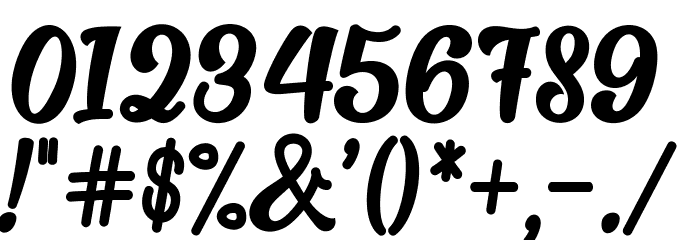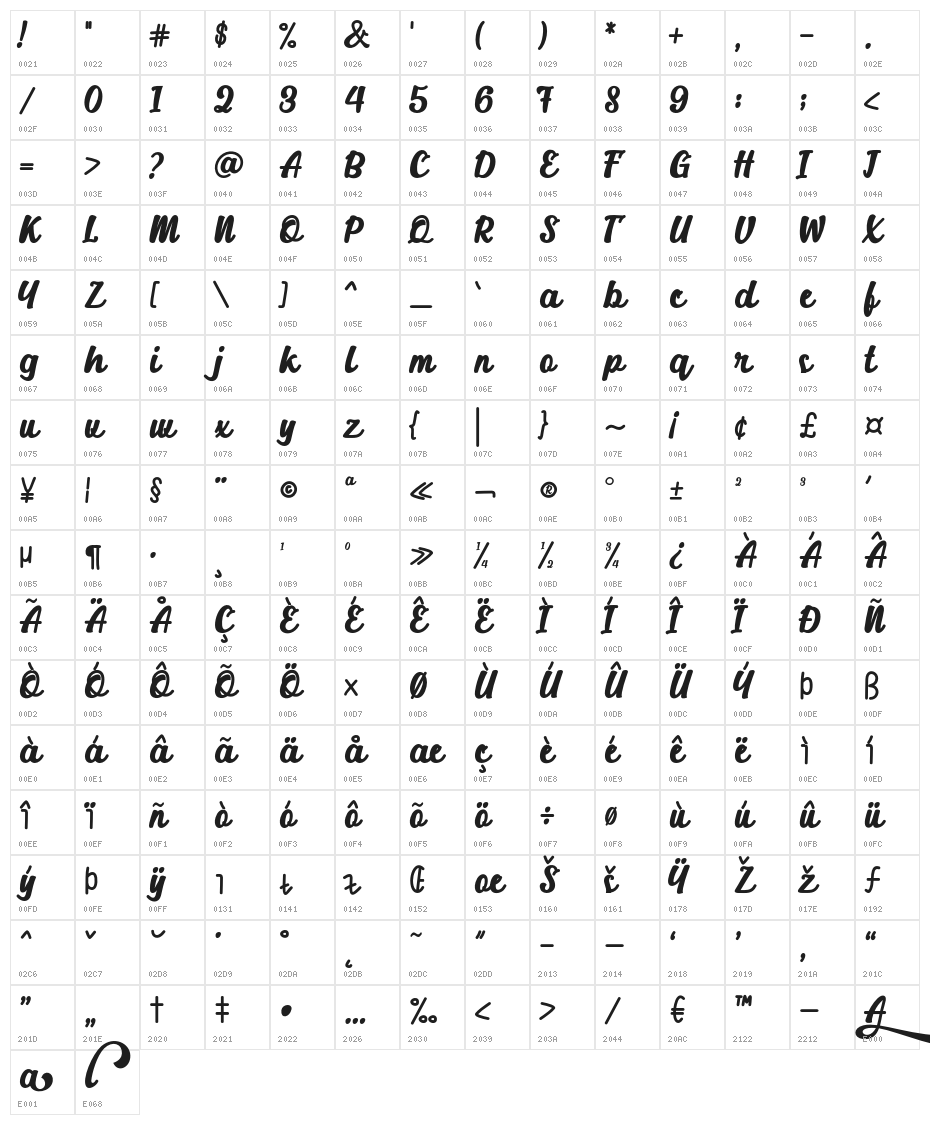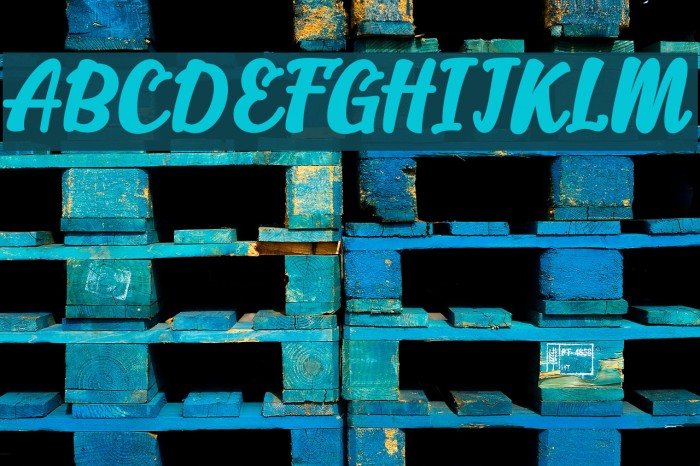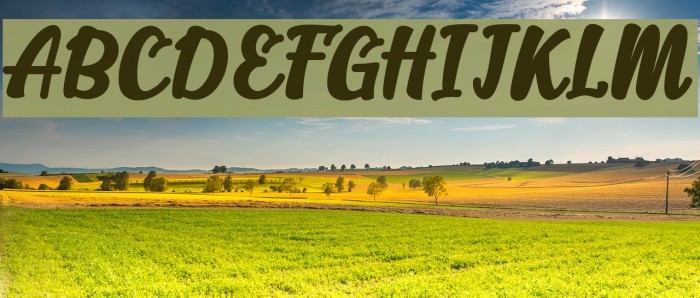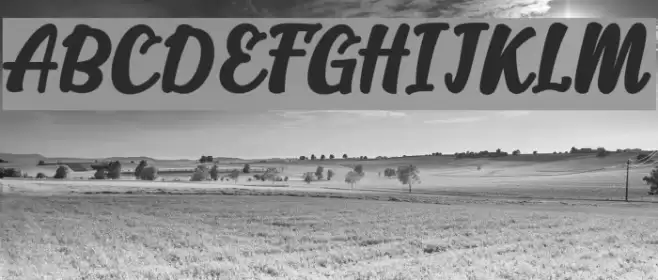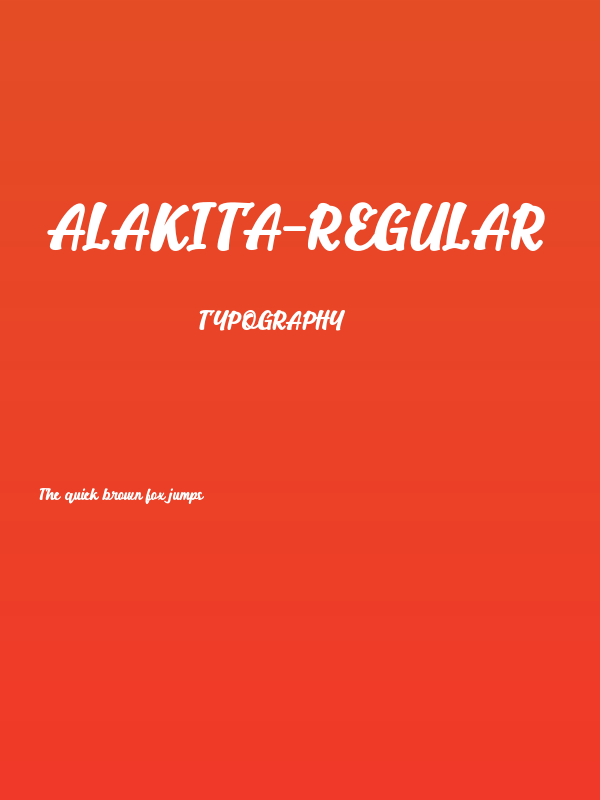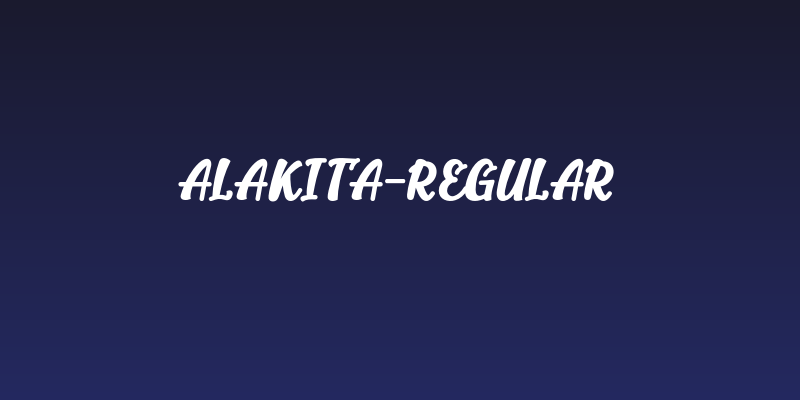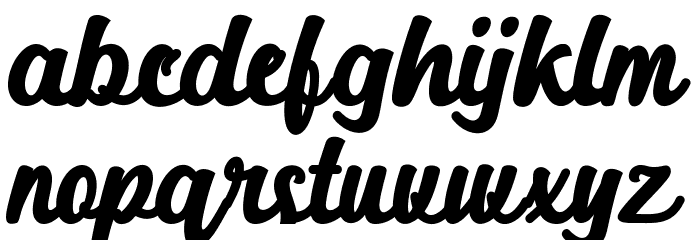
Alakita-Regular Font
Alakita-Regular Description
This font features a bold, cursive style with a playful and energetic feel. The letters are connected, creating a smooth flow that mimics natural handwriting. The uppercase letters are slightly larger and more pronounced, while the lowercase letters maintain a consistent size and shape. The numerals and special characters are designed to match the overall aesthetic, with rounded edges and a consistent stroke width. This font's boldness and fluidity make it stand out, offering a dynamic and lively appearance suitable for various creative applications.
Use CaseLogos, Headlines, Decorative text
Proposed ProjectsIdeal for greeting cards, invitations, branding, and social media graphics.